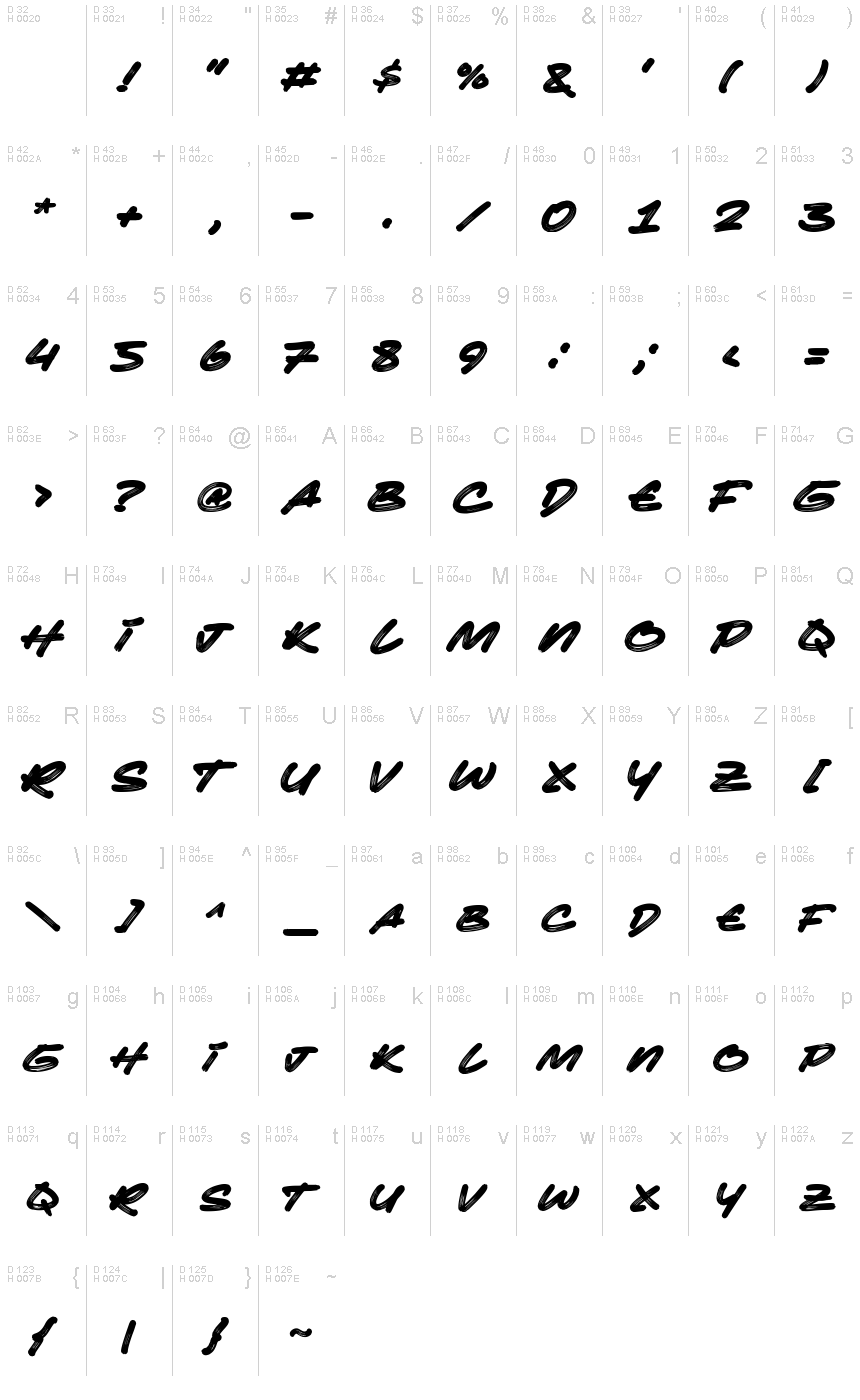
The Queen Marker Alternate
The Queen Marker Alternate - a bold, brush-style font that commands attention. Crafted by Azetype Studio, this expanded typeface exudes a dynamic, expressive flair. With its energetic brush strokes and confident brushwork, The Queen Marker Alternate is a striking choice for headlines, branding, and eye-catching typographic designs.
This font's unique character shines through in its assertive, bold presence. Its expanded width lends a powerful, impactful quality, making it ideal for making a statement in modern, edgy layouts. Whether used for dramatic titles, powerful slogans, or distinctive logotypes, The Queen Marker Alternate brings a bold, distinctive aesthetic that demands to be noticed.